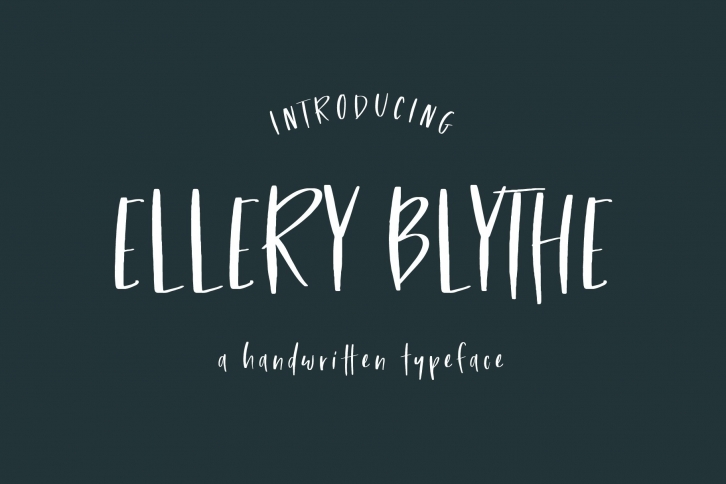
Ellery Blythe is a casual and quirky handwritten font with a few ligatures included (for those with OpenType features).
This gal is great for any design project that needs a little handmade touch. Use her for typographic designs, doodles, greeting cards, stationery - whatever floats your boat, babe!